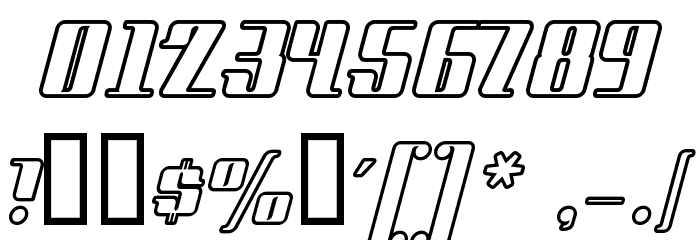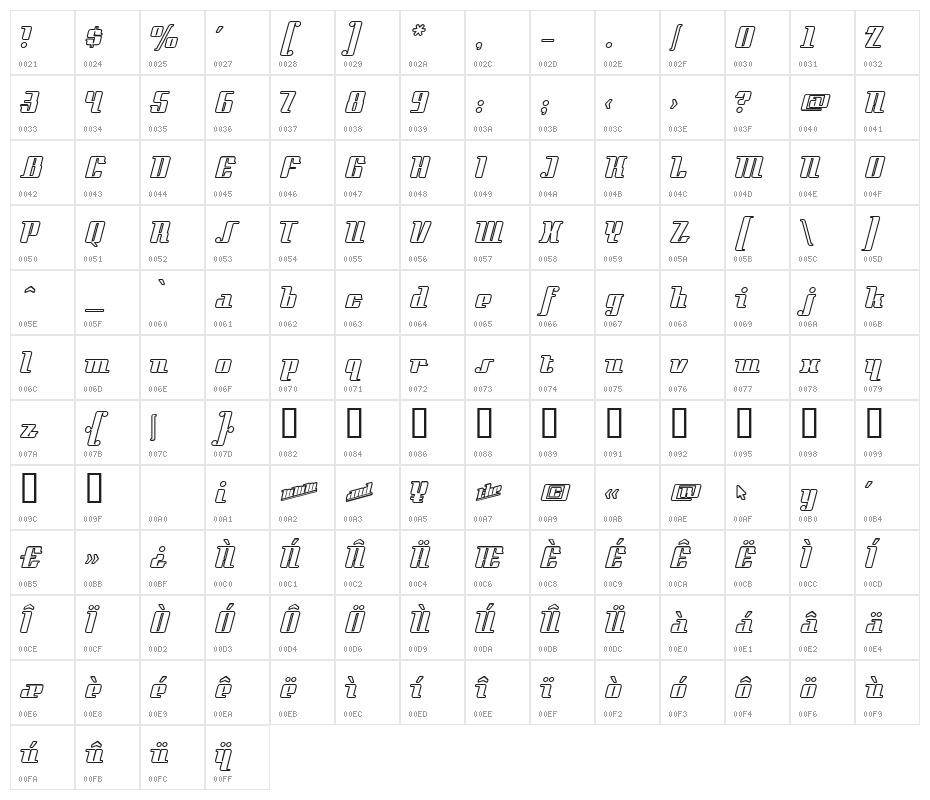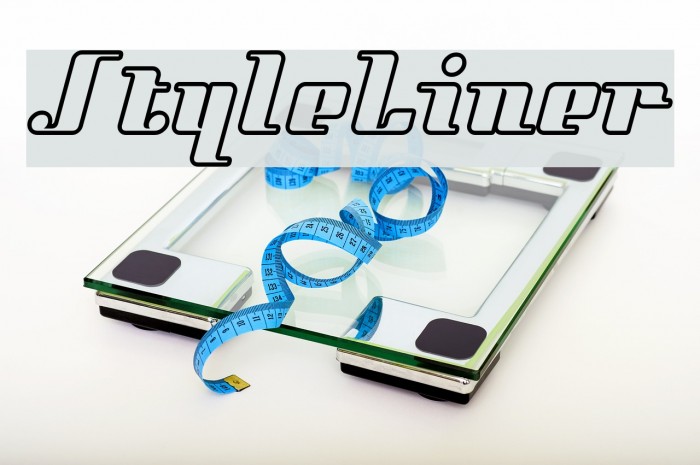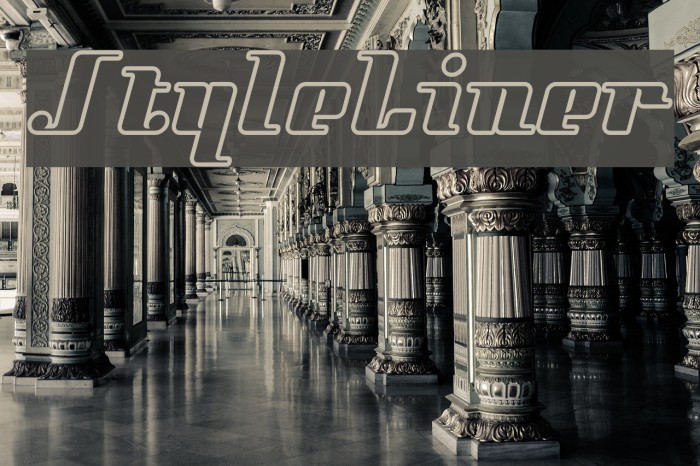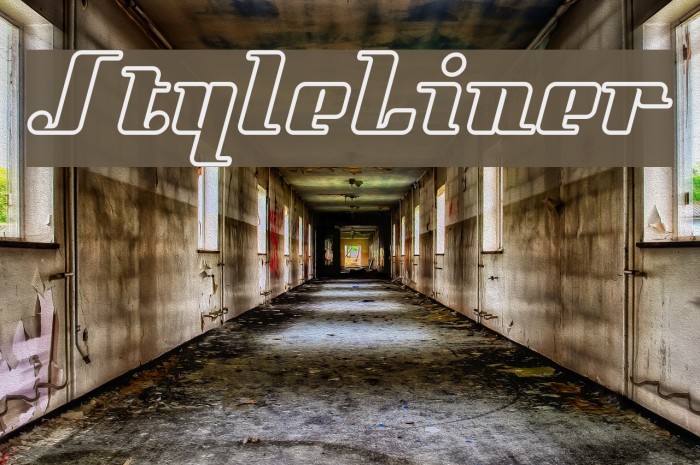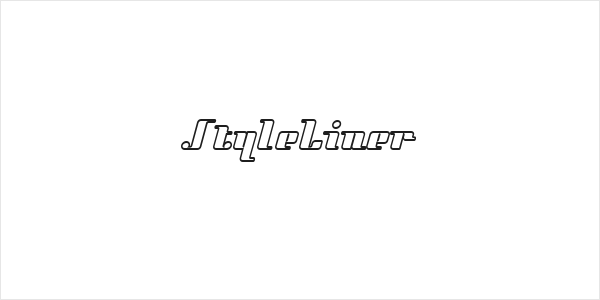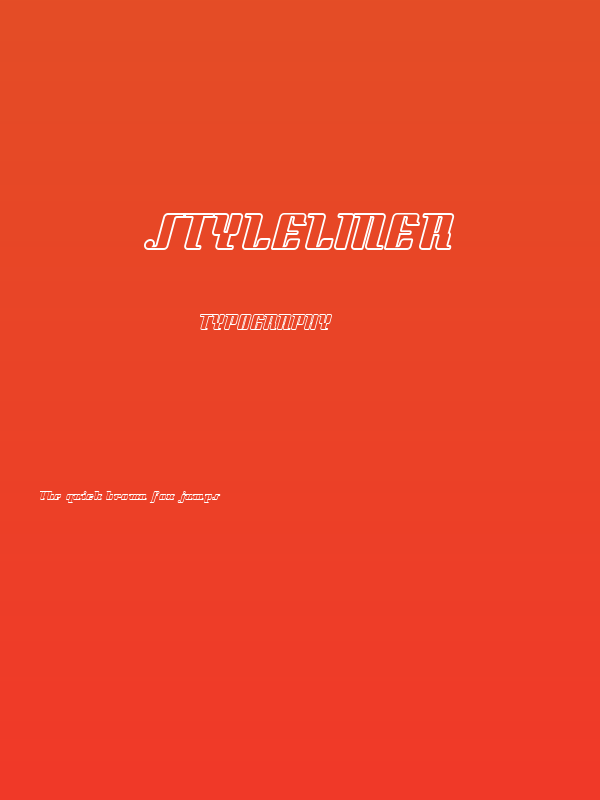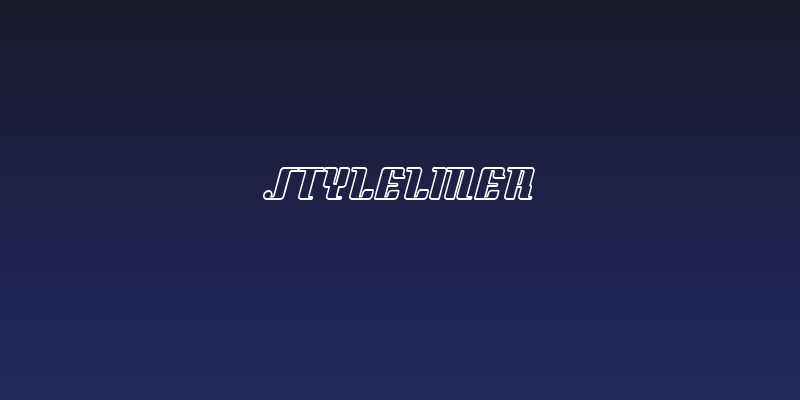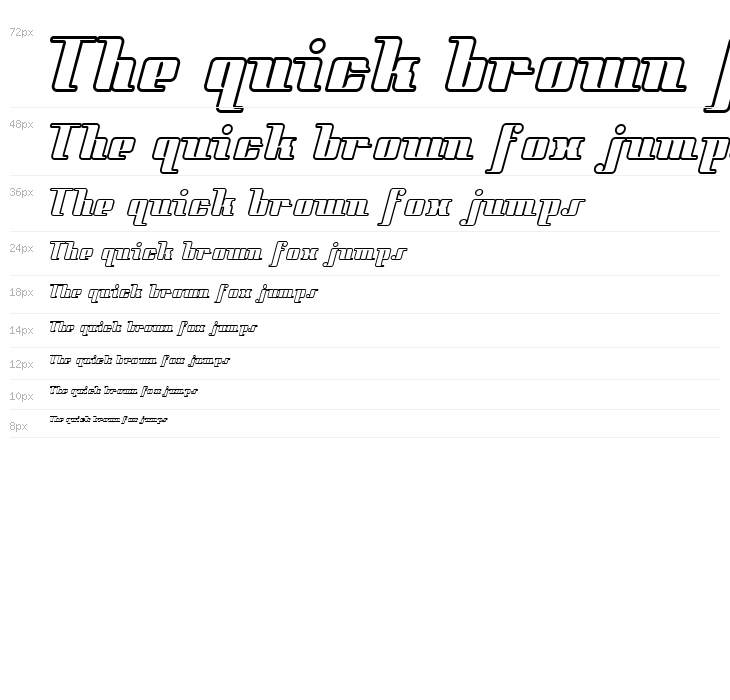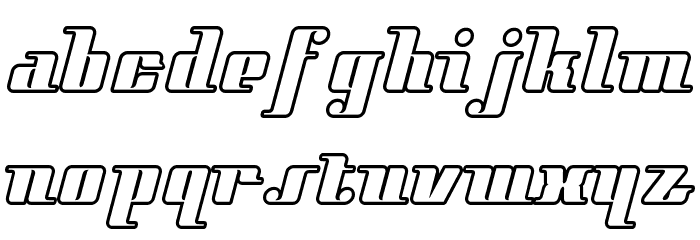
StyleLiner Font
StyleLiner Description
This font features a bold, outlined style with a modern and dynamic appearance. The characters are slightly slanted, giving a sense of movement and energy. The uppercase and lowercase letters maintain a consistent height, while the numbers and special characters complement the overall design. The strokes are uniform in thickness, creating a cohesive and structured look. The font's unique outline effect adds a layer of depth, making it stand out in various design contexts.